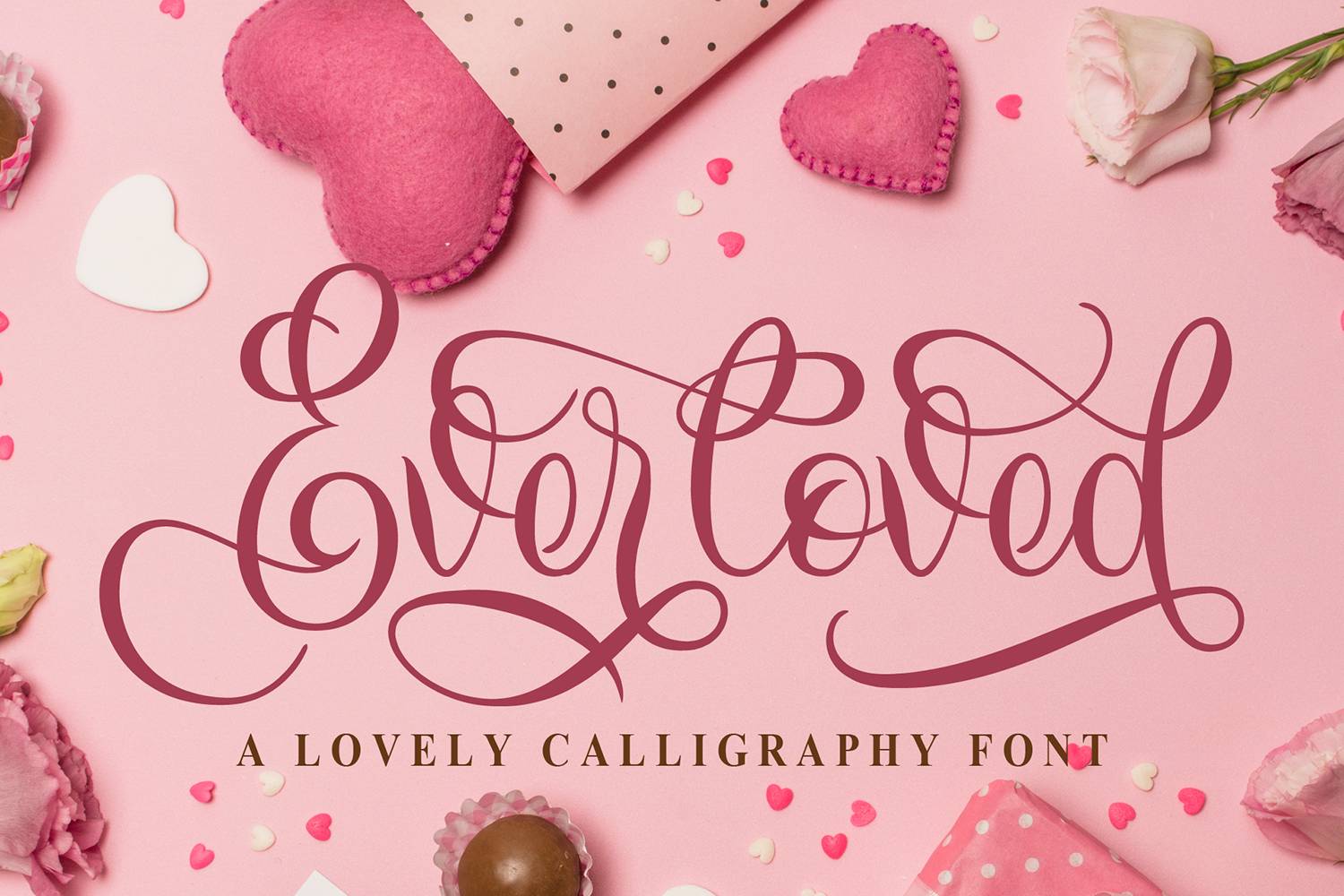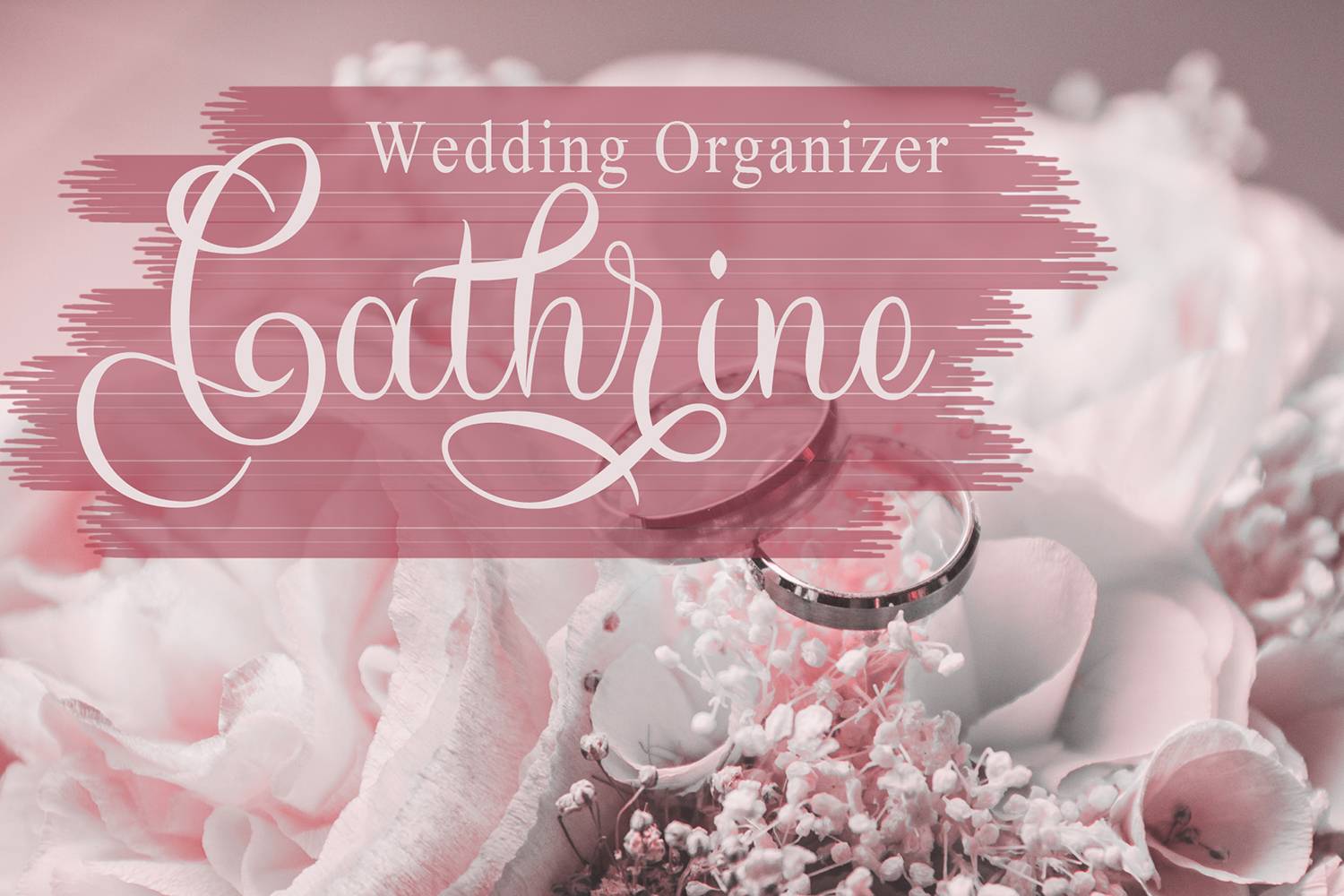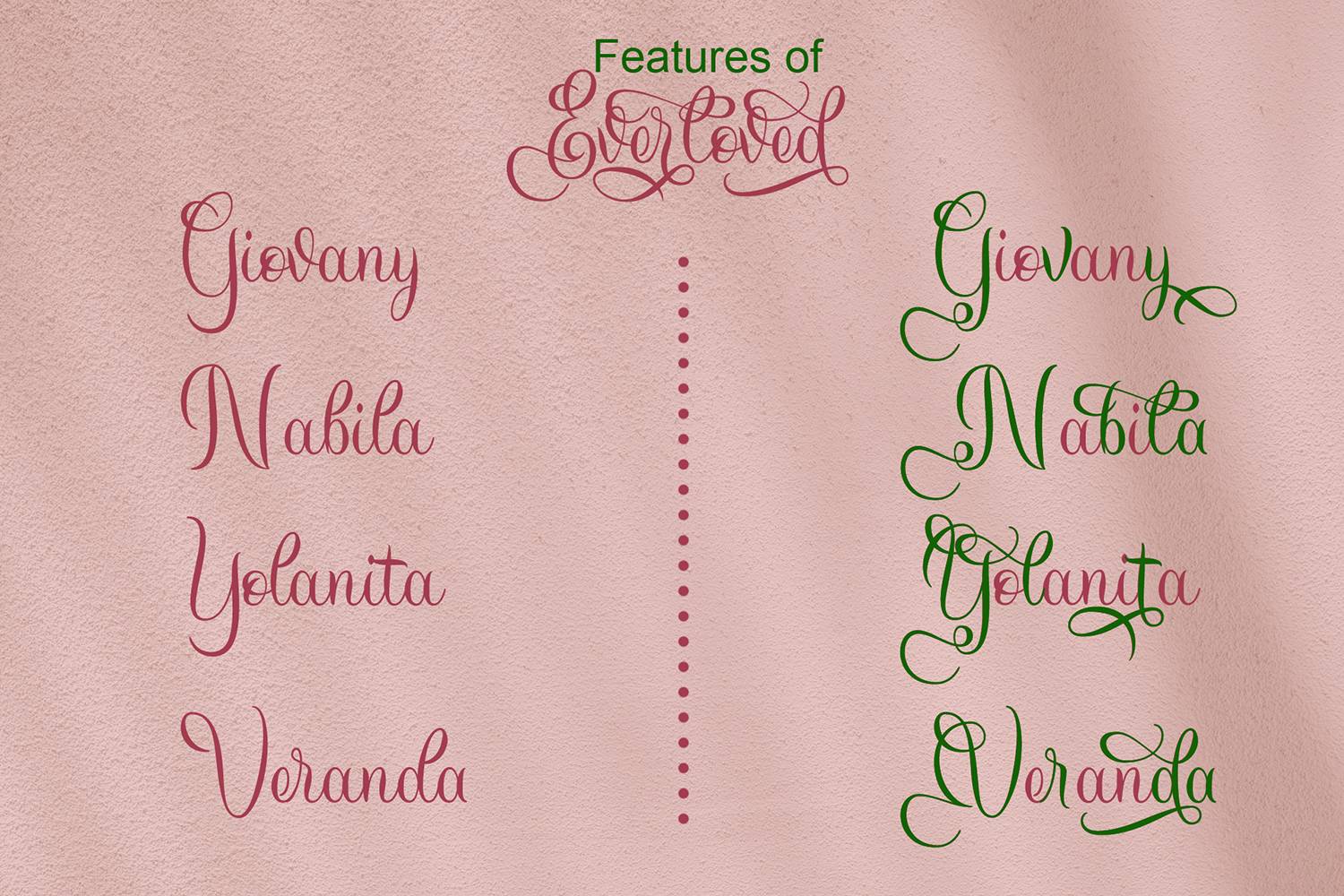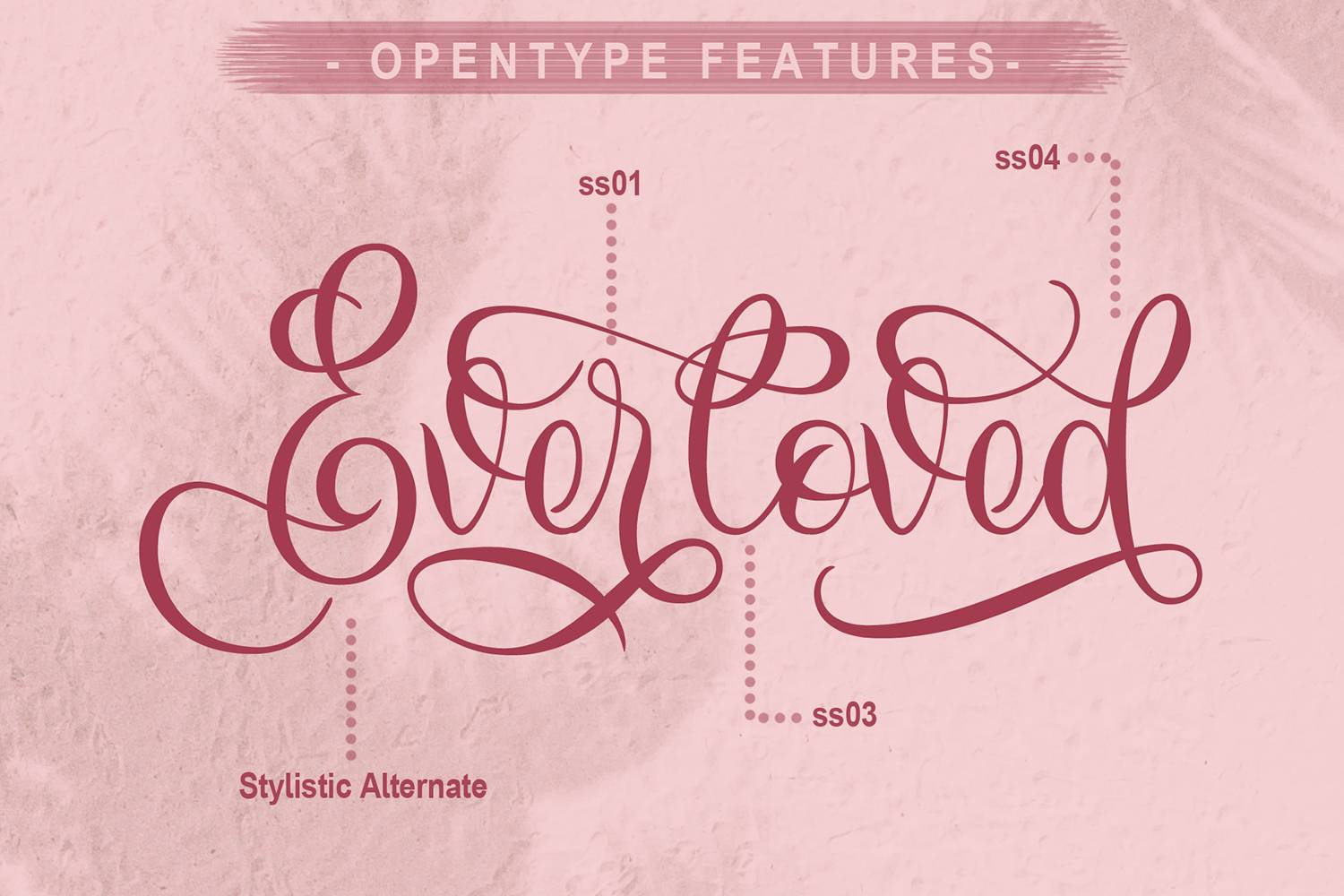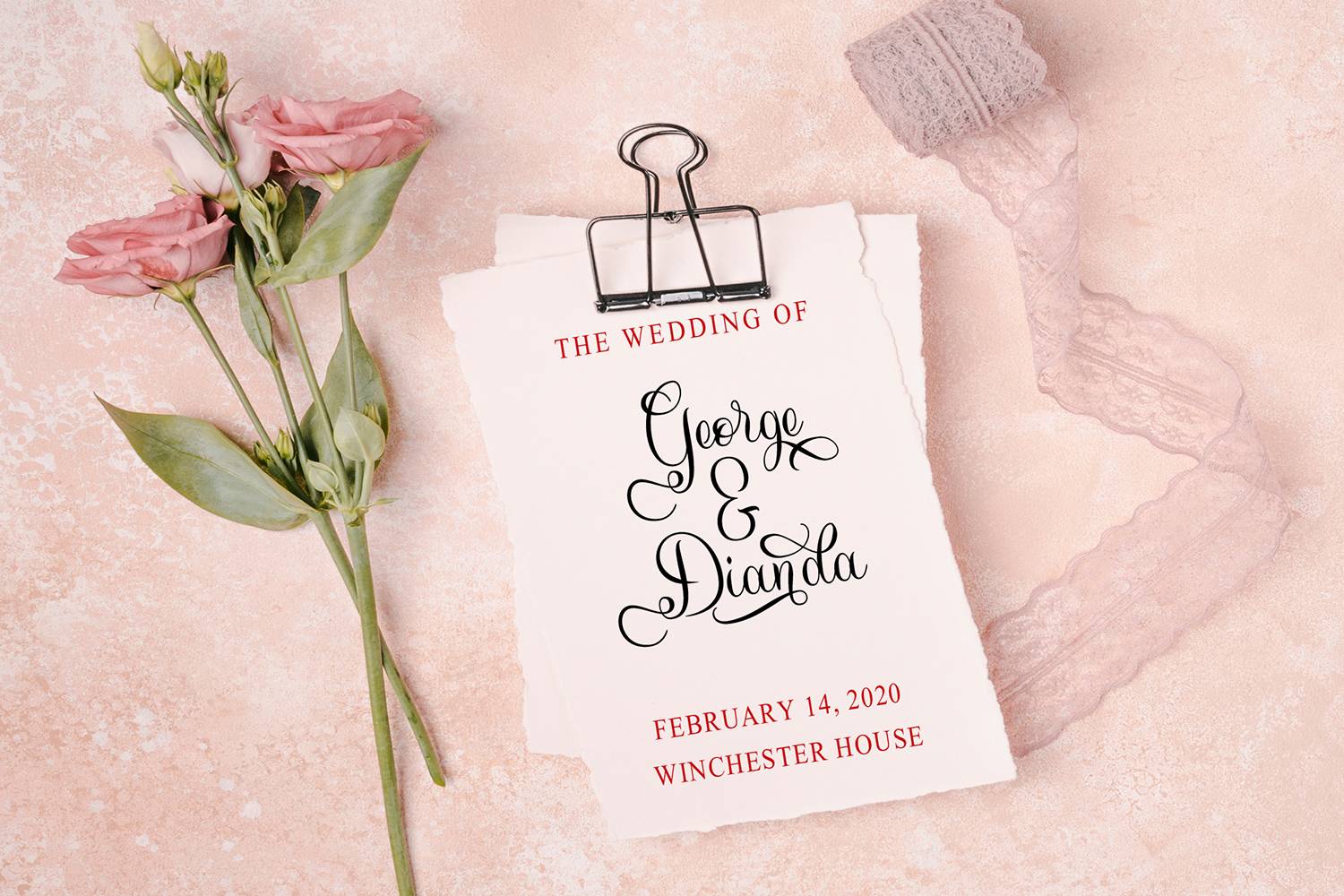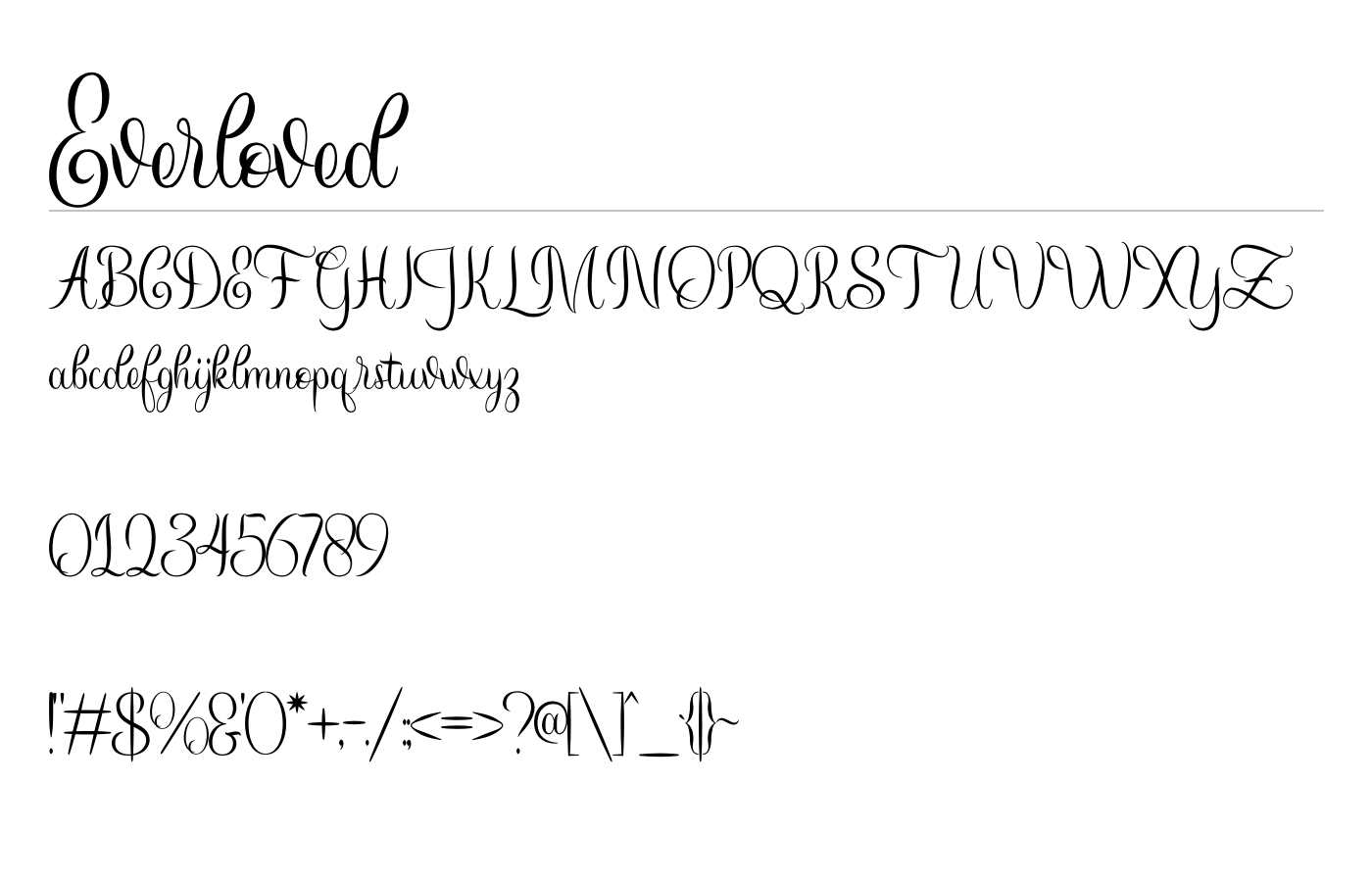
Everloved is a delicate and elegant script font with graceful, flowing lines and high contrast between thin and thick strokes. Its tall, narrow letterforms and ornate curves make it perfect for sophisticated branding, wedding invitations, and feminine design projects that seek a romantic and refined feel. This font shines in headlines and decorative uses where its intricate style can truly stand out.
Everloved Font
About Everloved Font
| Font family | Everloved Font |
| Designer | Doehantz Studio - Abduhan Fikhri |